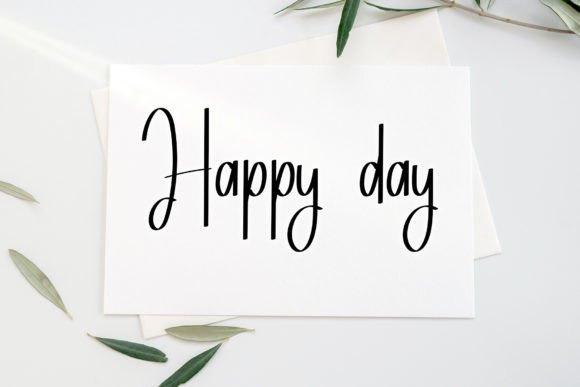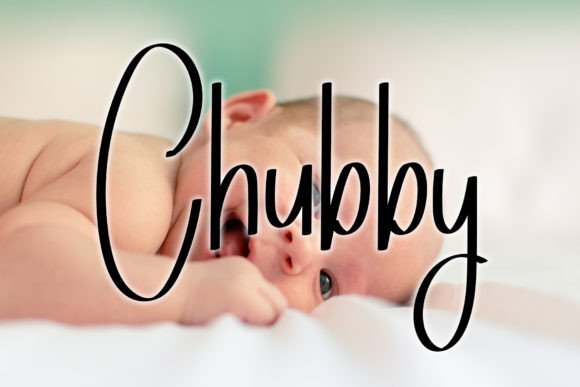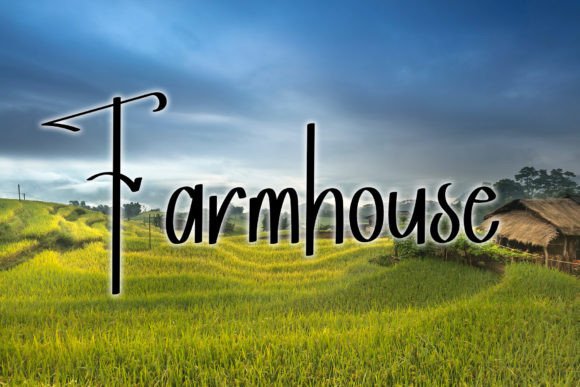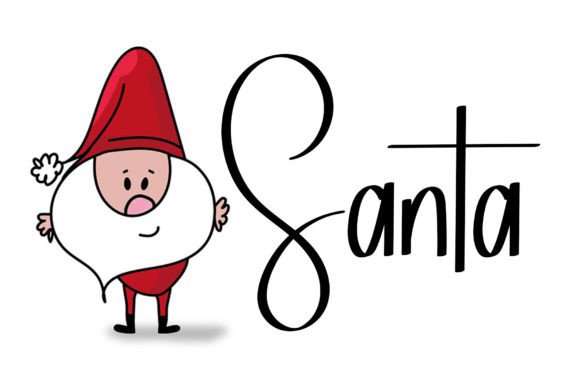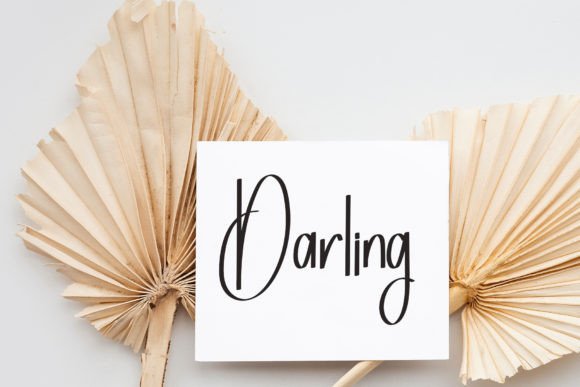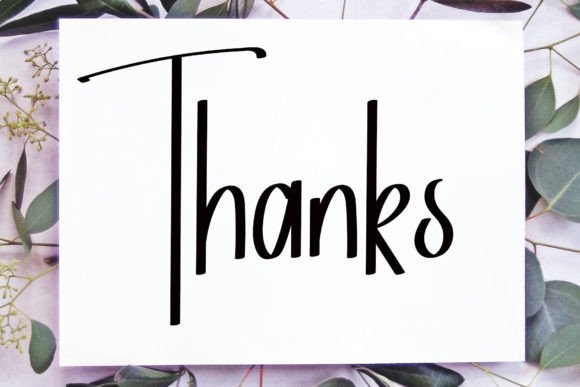
Introduction to Smile Coffee Font
Have you ever been working on a creative project, pouring your heart and soul into it, only to feel like something’s missing? The perfect font can make all the difference, elevating your design from good to great. That’s where the magical Smile Coffee Font comes in – a high-quality script font that’s sure to bring a smile to your face and a touch of elegance to your work.
As a designer, you know how important it is to have access to top-notch design resources. The Smile Coffee Font is a valuable addition to any creative arsenal, perfect for Instagram posts, DIY projects, or any other design venture that requires a little extra flair. With its transparent background and free download option, you can incorporate this beautiful font into your next project without breaking the bank.
Key Features of Smile Coffee Font
- High-quality design: Smile Coffee Font is a professional, high-quality font perfect for creative projects.
- Transparent background: The font features a transparent background, allowing for easy customization and layering in design projects.
- Unique characteristics: Smile Coffee Font features a unique, hand-drawn style with subtle nuances, making it perfect for adding a personal touch to creative projects.
- Perfect for design projects: With its high-quality design and transparent background, Smile Coffee Font is ideal for use in brochures, flyers, and other marketing materials.
Honest Review: Smile Coffee Font
I recently came across the Smile Coffee Font, a free design resource that caught my attention with its unique and playful style. As a designer, I appreciate a good font that can elevate a creative project and make it stand out. The Smile Coffee Font is no exception.
Here’s what works well: ✨ The font has a high-quality design that’s perfect for a coffee shop or cafe-themed project. The letters are smooth, and the texture adds a nice touch. The transparent background option is also a plus, allowing for seamless integration with any design element.
Overall, I’m impressed with the Smile Coffee Font. It’s a great resource for designers looking to add a unique touch to their projects. Just be mindful of the limitations, and you’ll be all set.
- Unique and playful design
- High-quality design elements
- May not be suitable for small text sizes
Tips for Getting the Most Out of Smile Coffee Font
Use Smile Coffee Font on a transparent background to create a unique design element.
Experiment with different font sizes and styles to add visual interest to your design.
Combine Smile Coffee Font with other design resources for a high-quality, professional look.
Common Use Cases for Smile Coffee Font
Smile Coffee Font is ideal for creative projects, such as:
Blog posts and articles
Social media graphics
Business cards and brochures